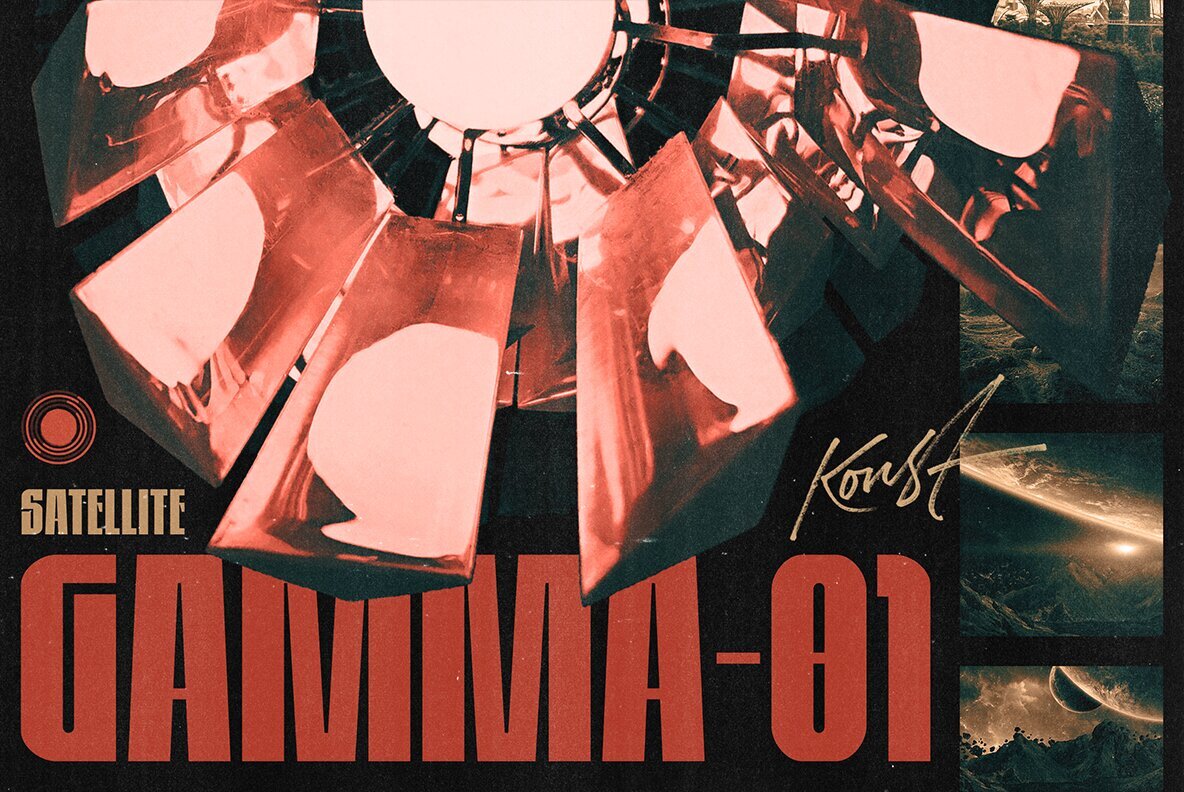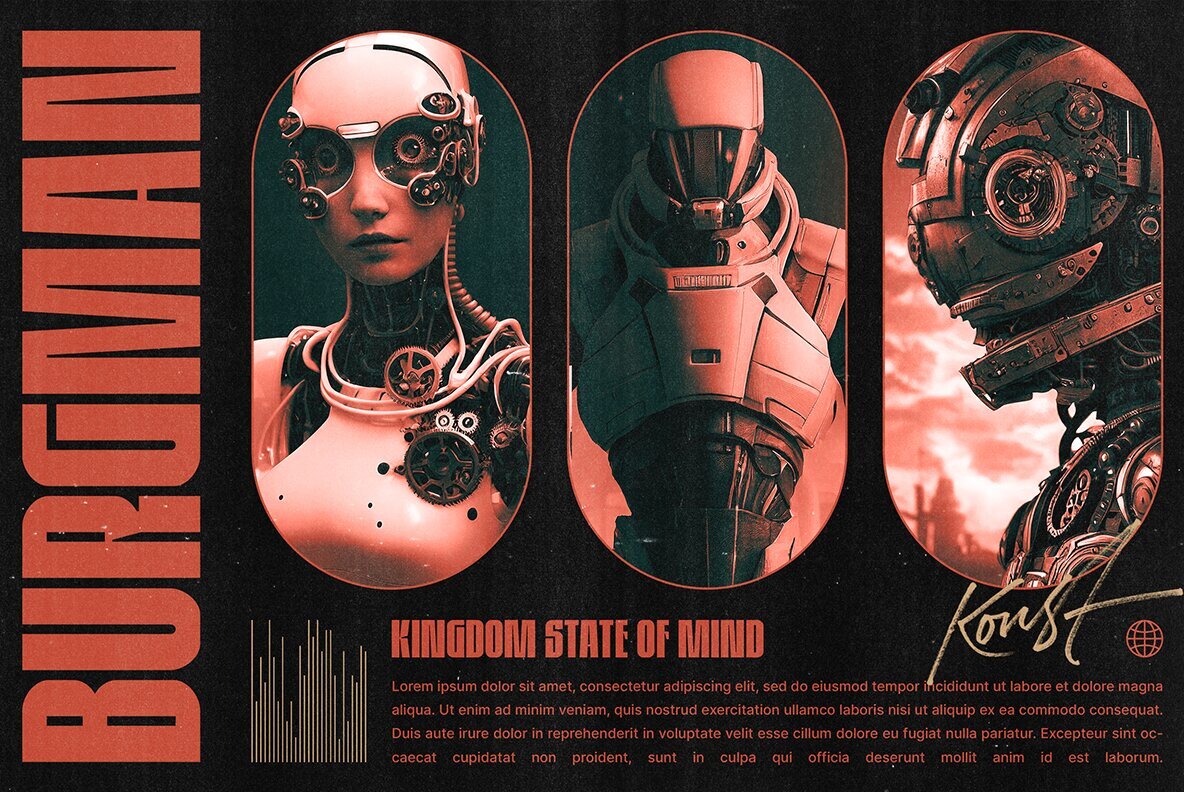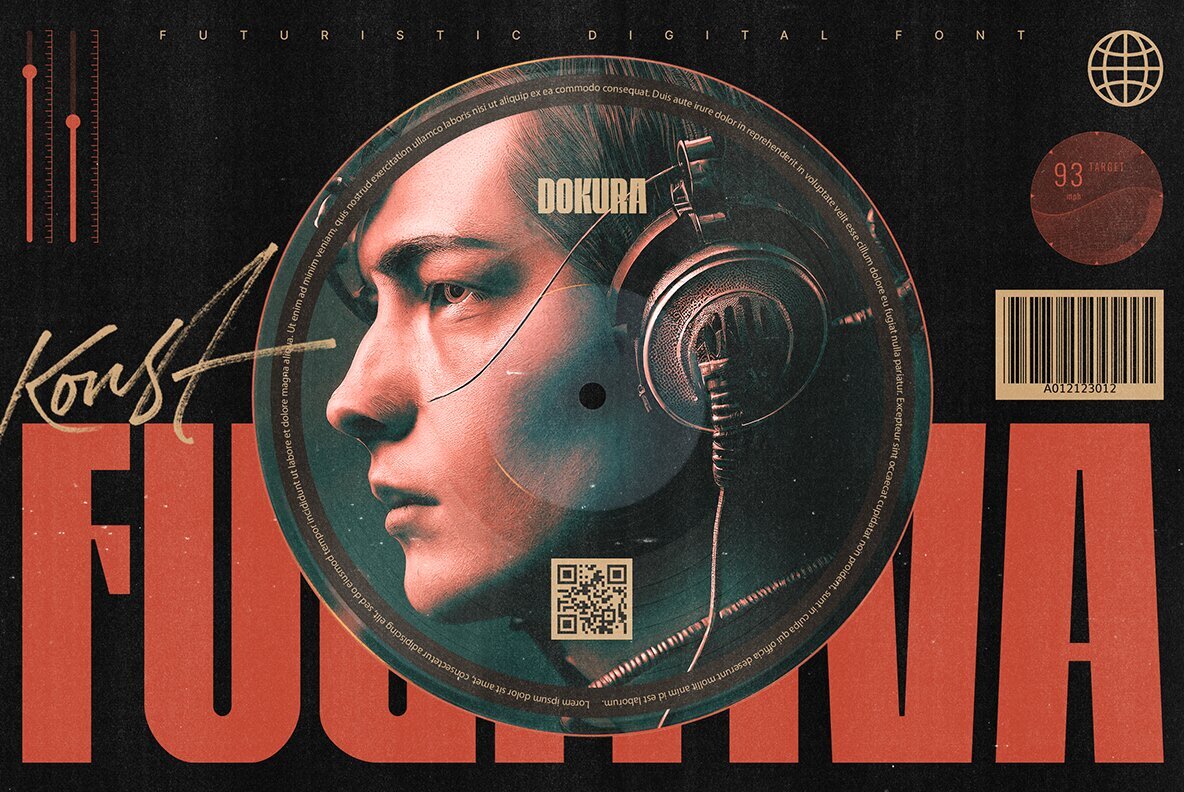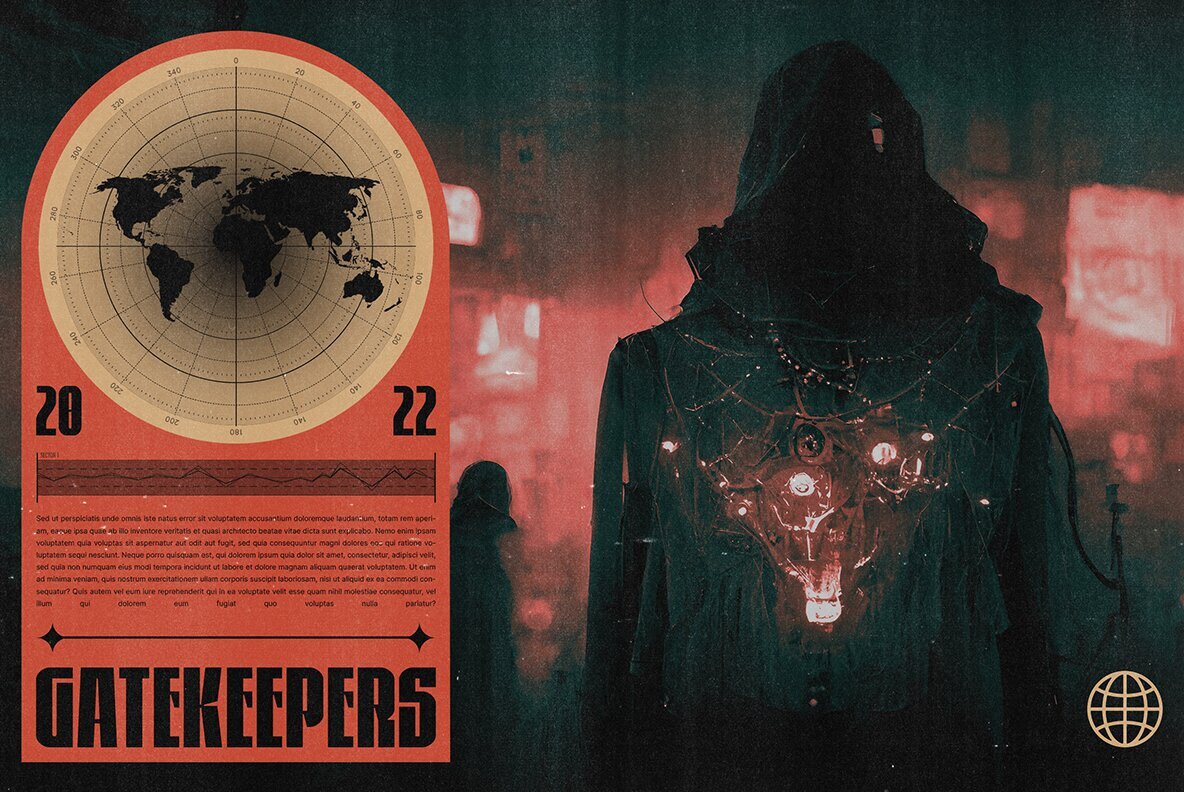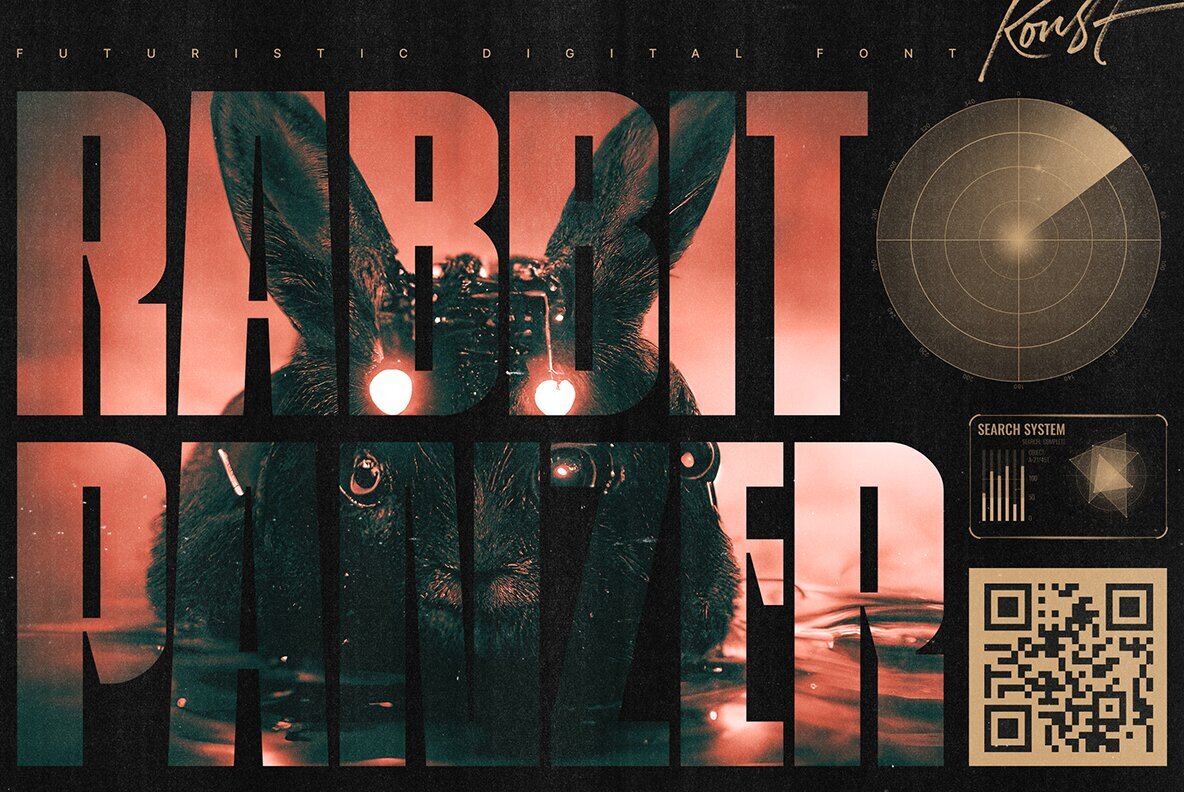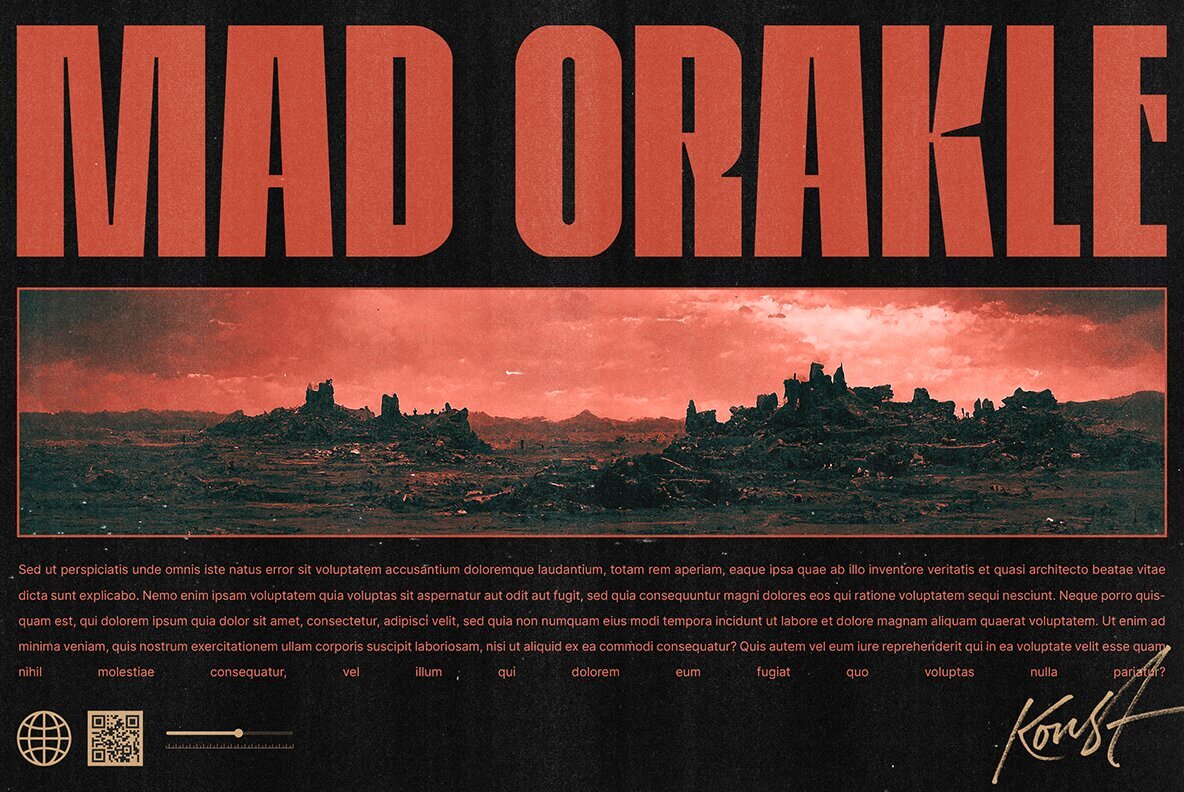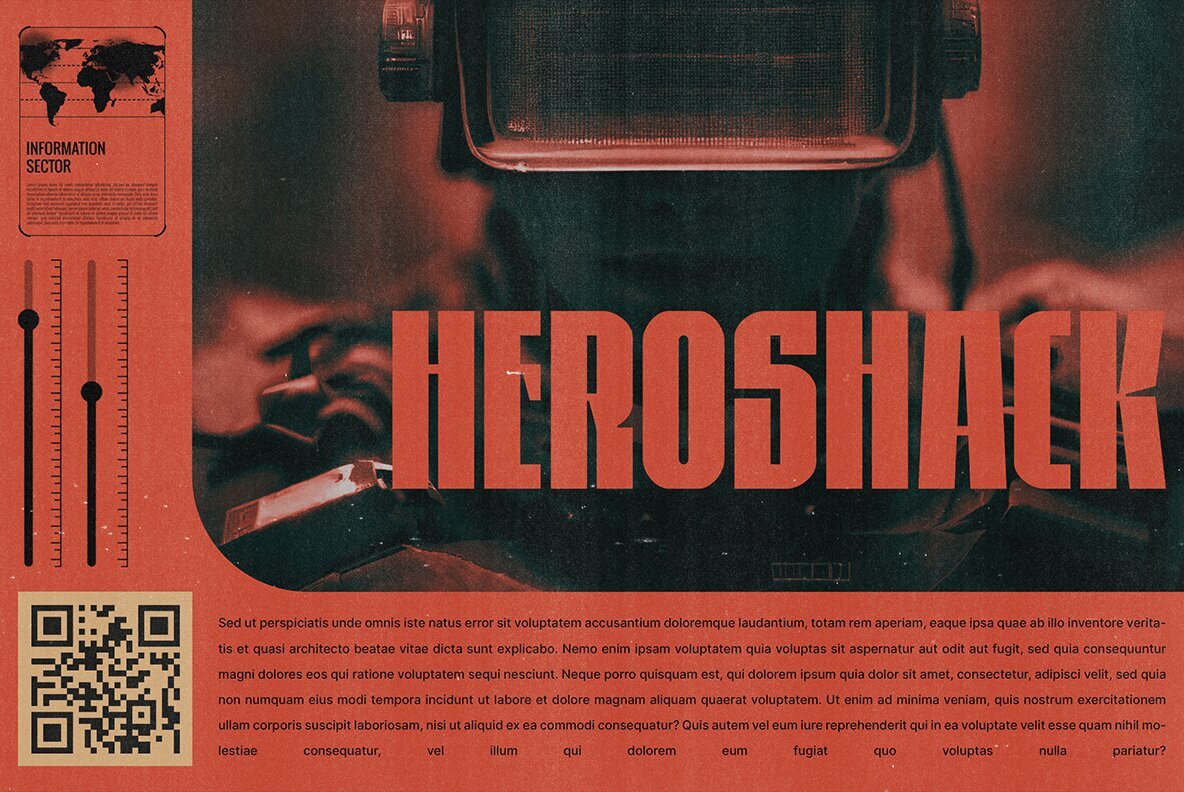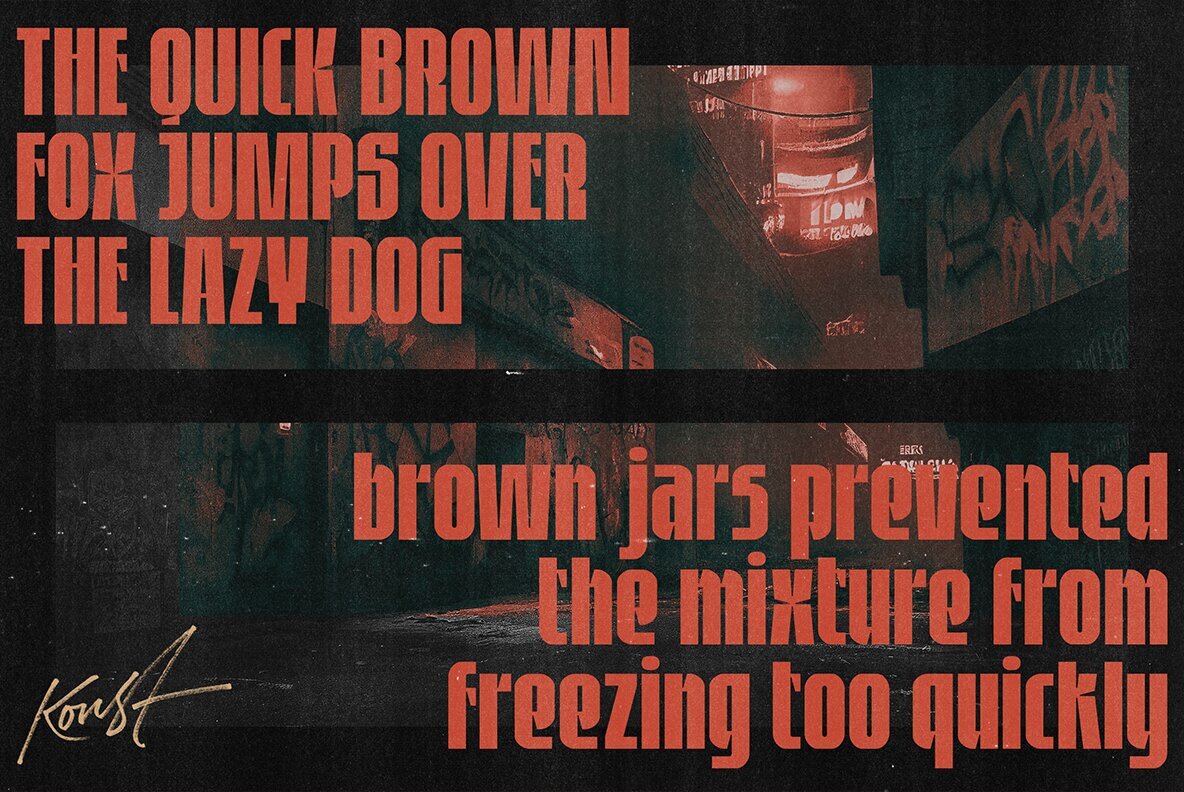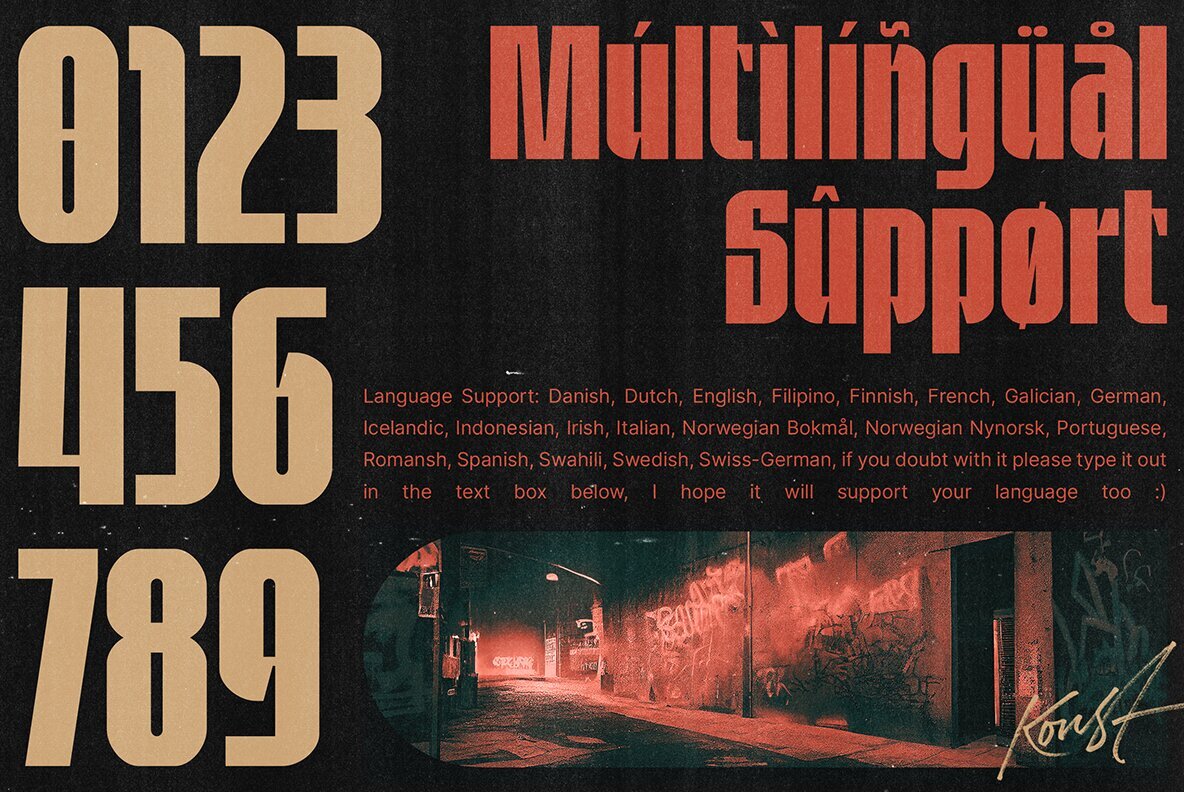
Alyrak Font
Alyrak Regular
Alyrak is born from the anxiety of the future dystopia of the human race. The fear of Artificial Intelligence, robots, and technology that potentially invade living things. Represented in a font and visual to emulate the vibe every time you type it from your keyboard.